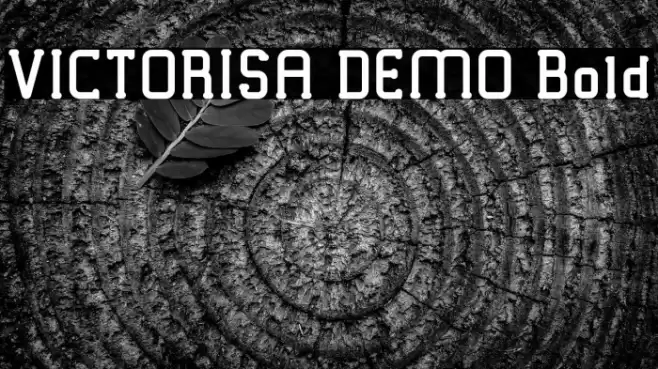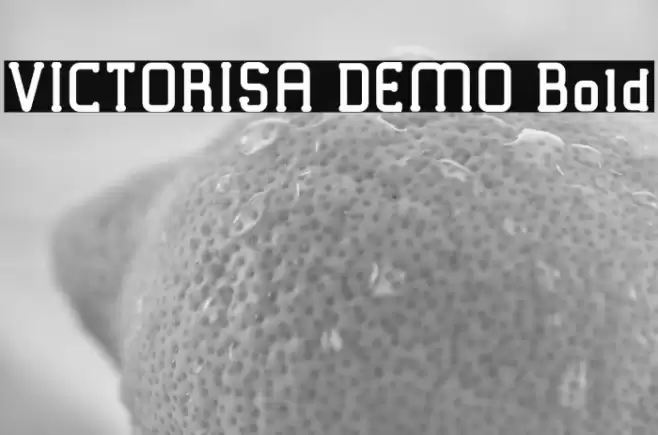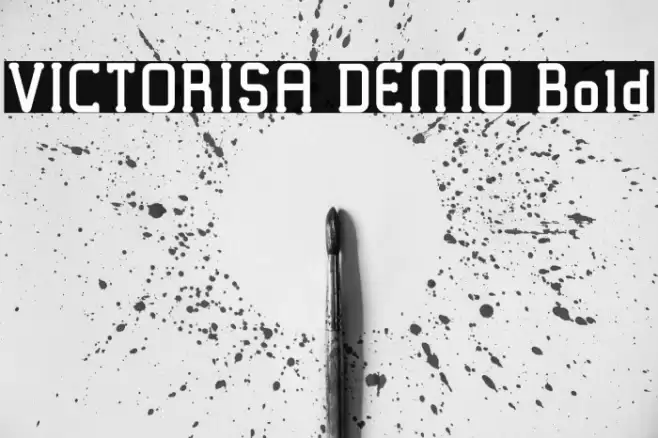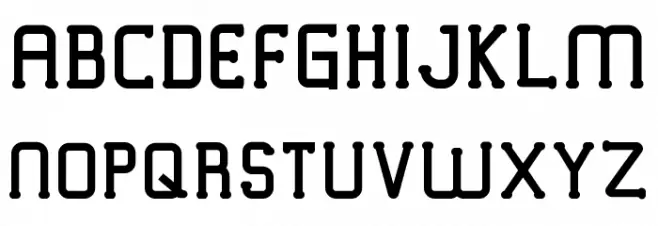
VICTORISA DEMO Bold Font
VICTORISA DEMO Bold Description
This font features a bold and structured design with a modern twist. The characters are well-defined with rounded edges and a consistent stroke width, giving it a sturdy and robust appearance. The uppercase and lowercase letters maintain a uniform style, with slight variations in curvature and line endings that add a touch of uniqueness. The numerals and special characters are crafted to match the overall aesthetic, ensuring a cohesive look across all text elements. This font is ideal for projects that require a strong visual impact while maintaining readability.
A bold, modern font with rounded edges and consistent stroke width from Uncategorized fonts.
- Proposed Projects: Ideal for branding, posters, headlines, and digital media where a strong, modern presence is desired.
- Use Case: Headlines, Logos, Branding